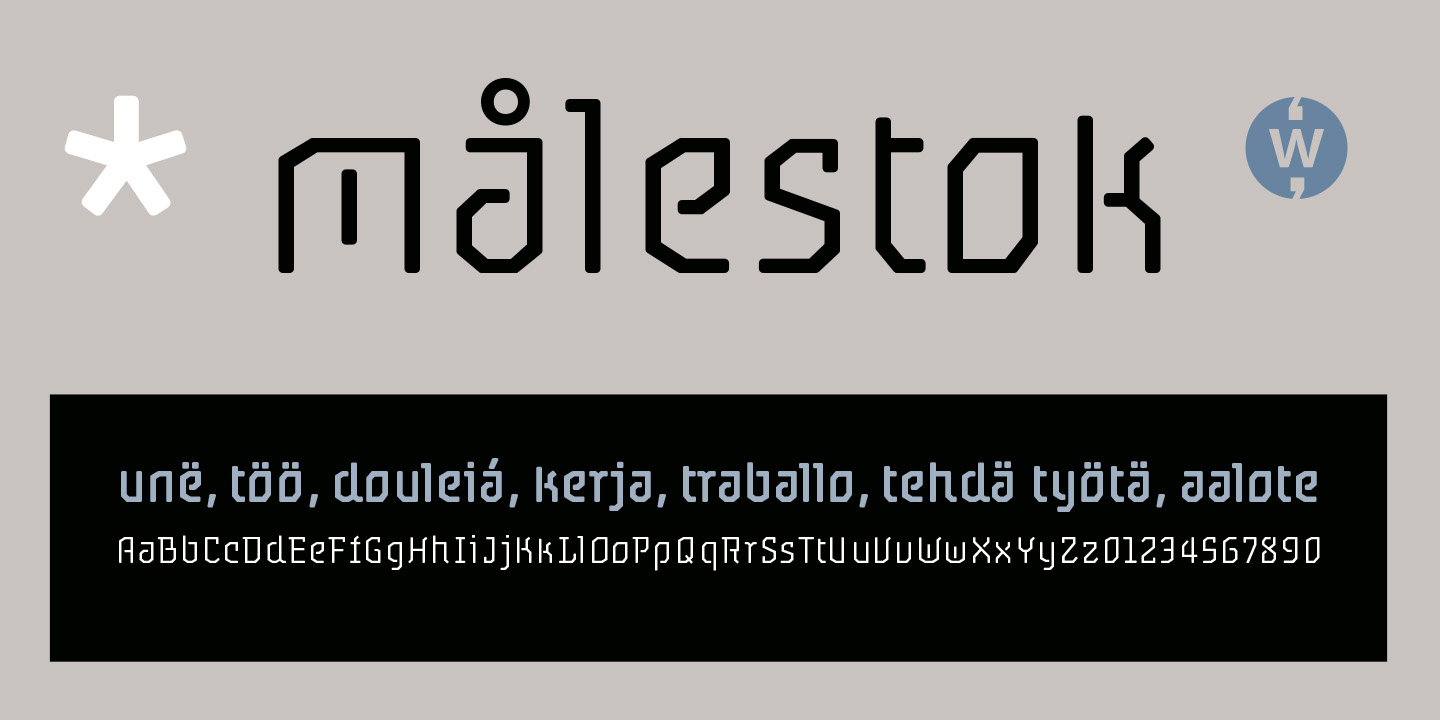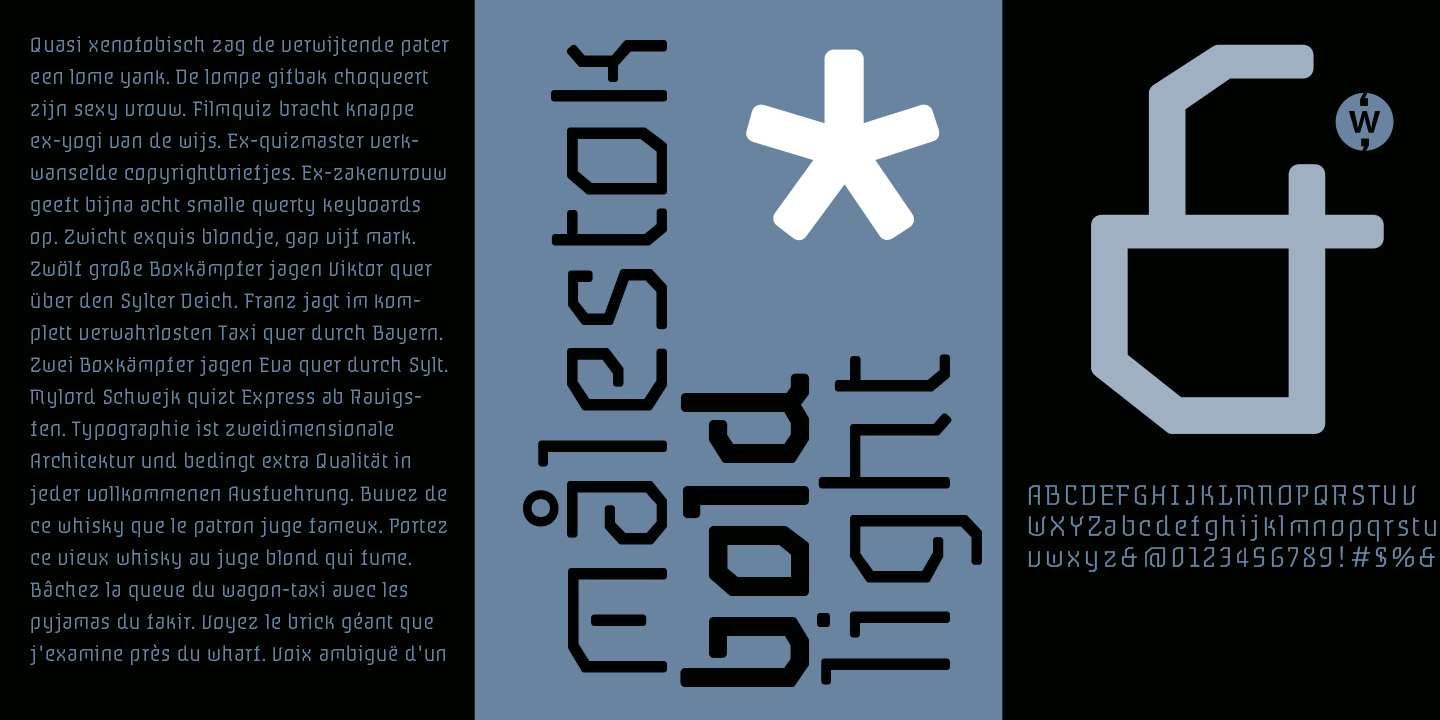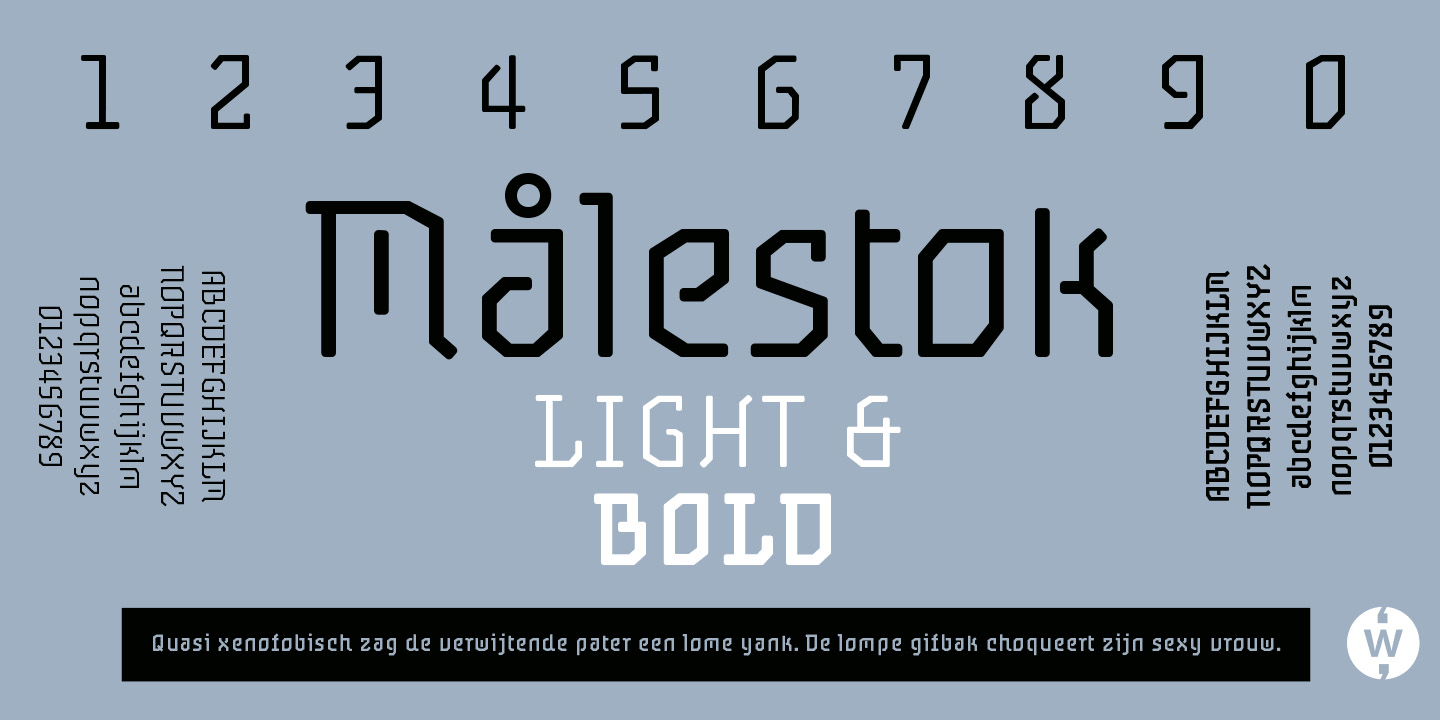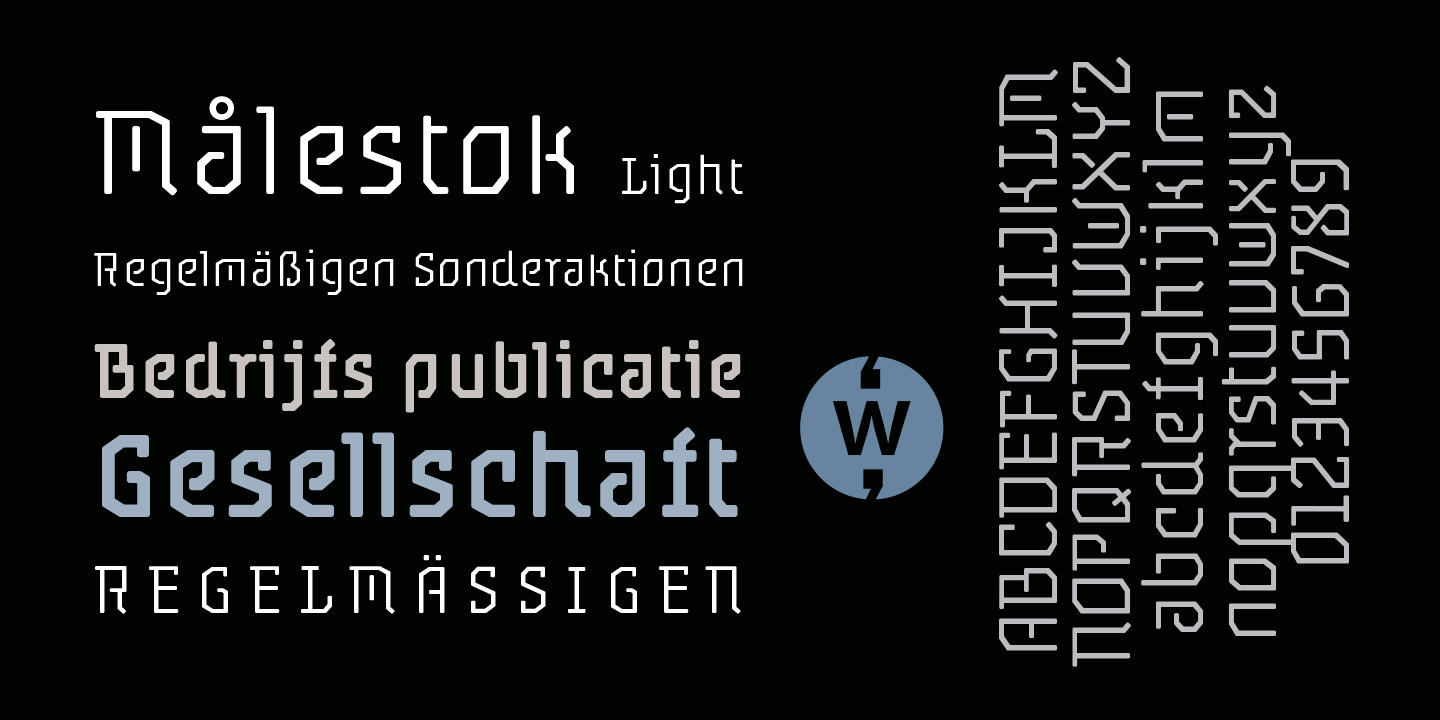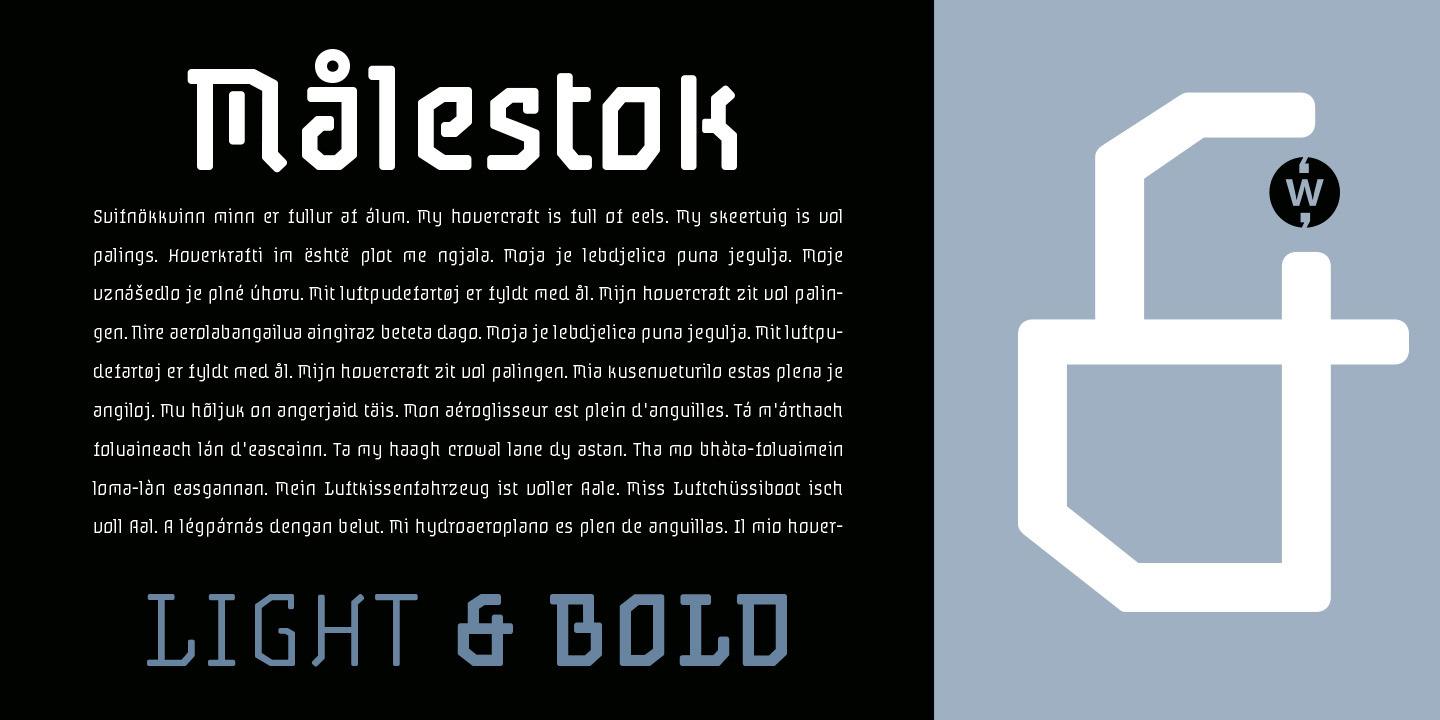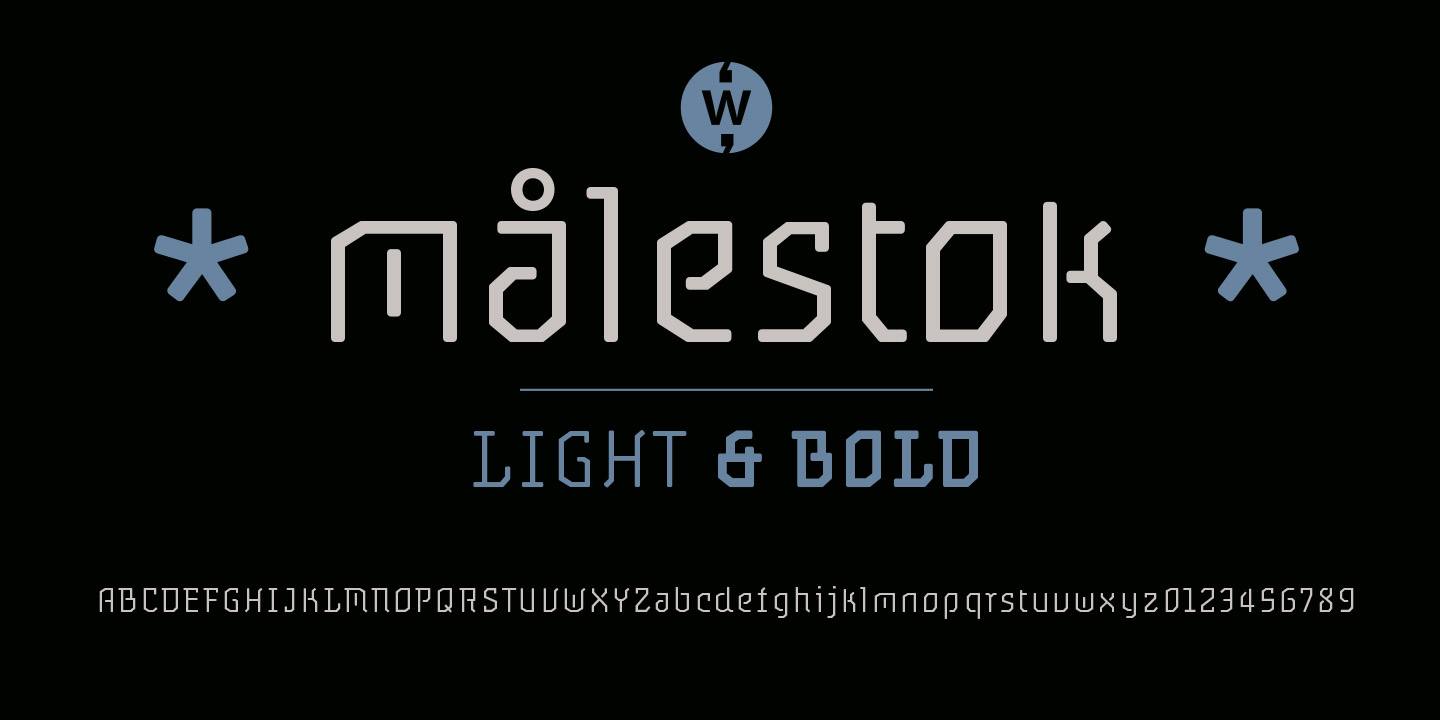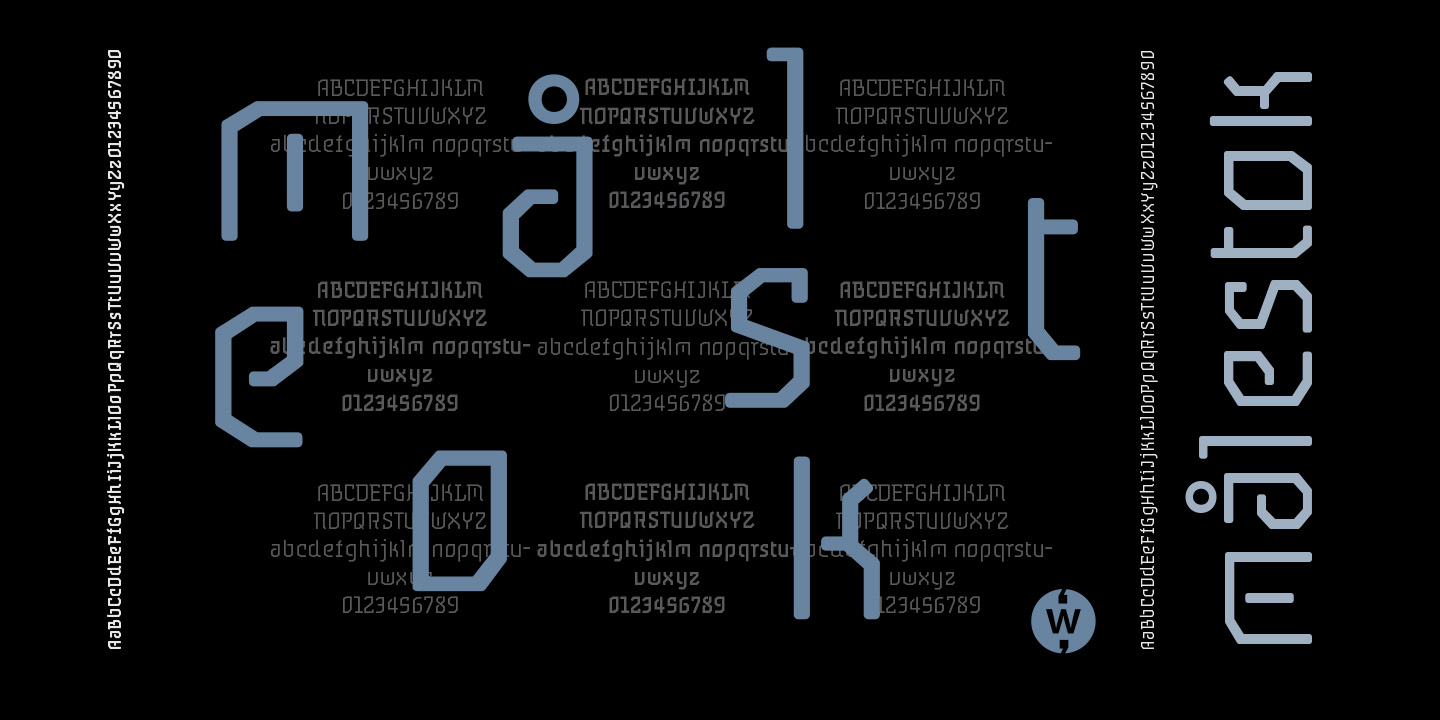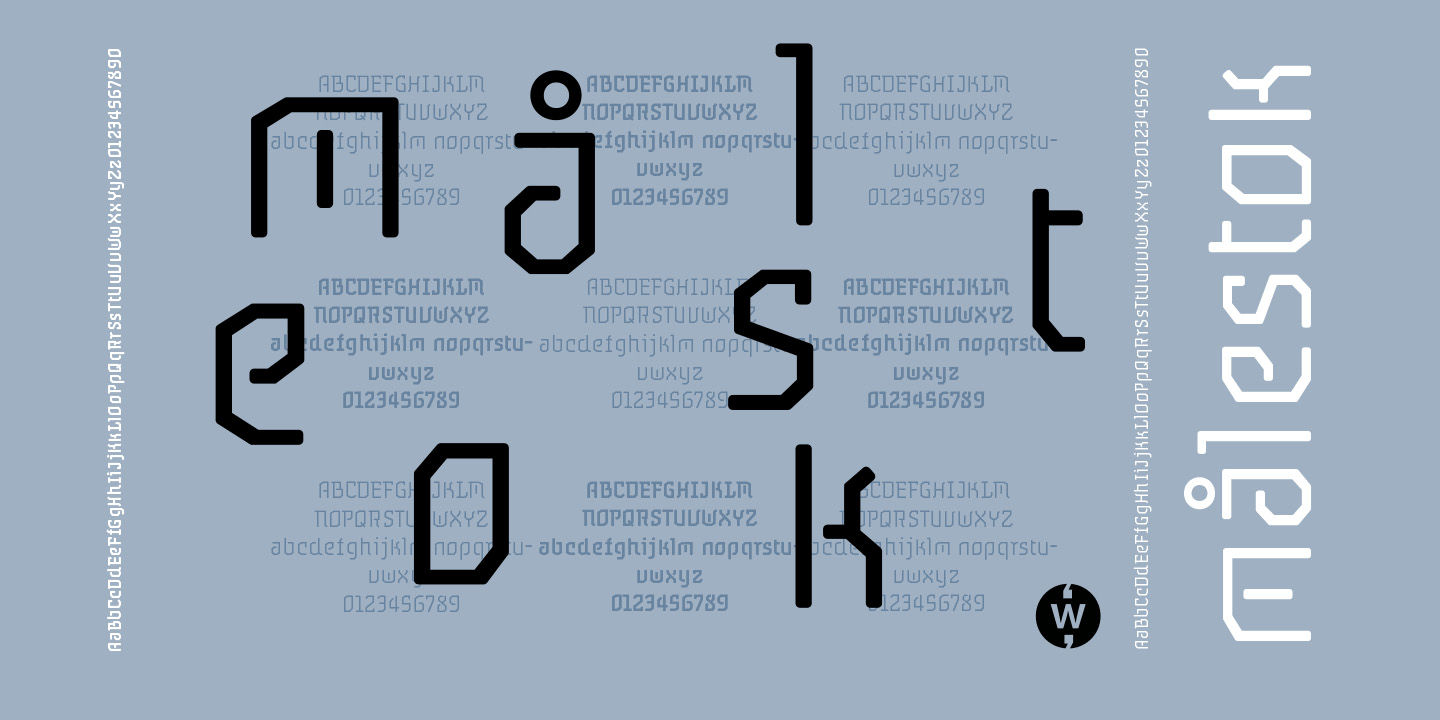
Målestok
Font Family by Wilton Foundry
Buy NowThe Målestok family (Light, Light Italic, Bold, Bold Italic) is an eclectic solution for a broad range of applications. The rounded outer corners combined with select stencil effects makes for an interesting and friendly face. In large sizes, the bold version is strong and engaging, while the lighter weights are stylish and friendly. Thanks to its distinctive slightly technical style, both print and interactive designers will find that Målestok provides a multitude creative options with the perfect solution to draw attention with style. Målestok family his ideal for branding, collateral, advertising and packaging design. Målestok also fits comfortably in fashion , retail and sport related categories. Målestok family was designed in Norway, The Netherlands and USA.